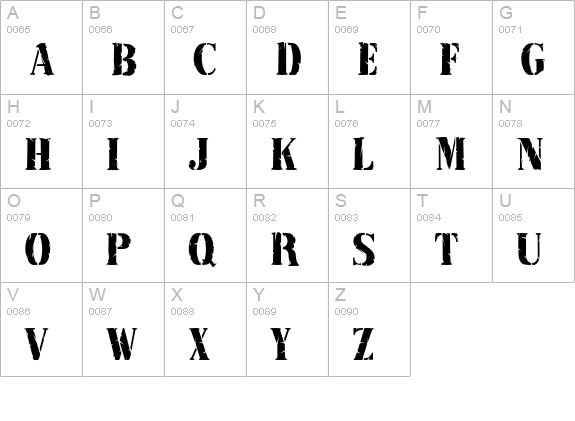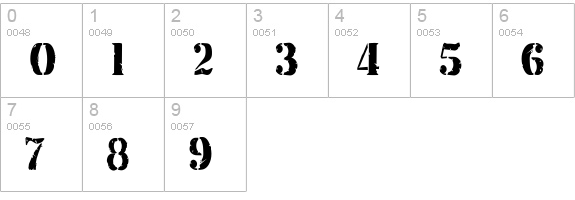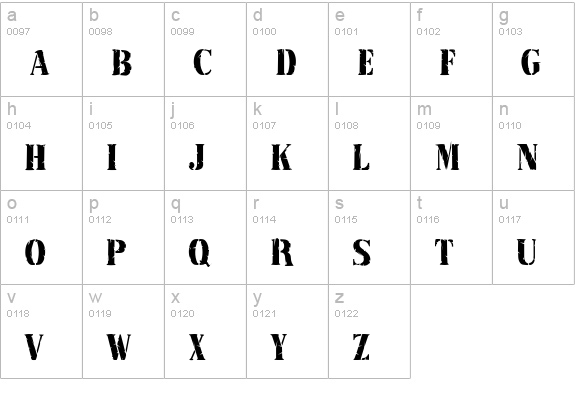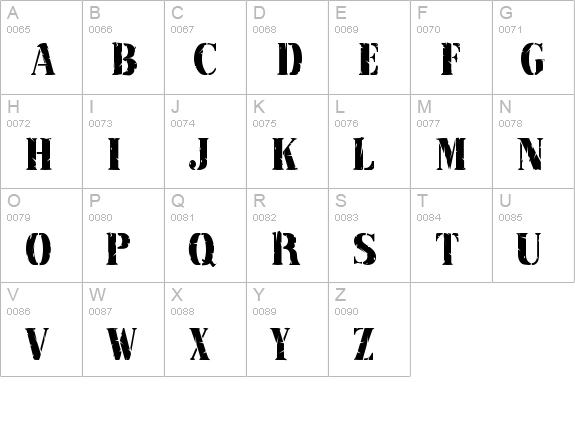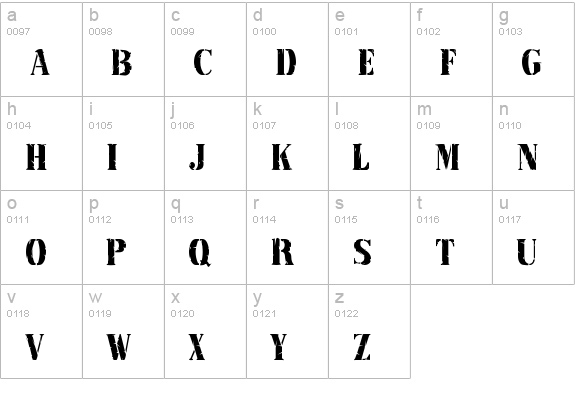
RubberStampCondensed Normal is the standard, neutral variant in the RubberStampCondensed typeface family \xE2\x80\x94 well suited to general body text, paragraphs, and standard typographic work.
RubberStampCondensed Normal font is a unique and versatile typeface that exudes a sense of creativity and authenticity. Its condensed design gives it a modern and sleek appearance, making it perfect for a wide range of design projects. Whether you are looking to add a touch of whimsy to your branding, create eye-catching headlines, or give your artwork a handcrafted feel, RubberStampCondensed Normal font is the perfect choice. Best of all, this font is available for free download at FontsMarket.com. With its easy accessibility, you can start using RubberStampCondensed Normal font in your projects right away. Don't miss out on the opportunity to enhance your designs with this stylish and distinctive typeface that will surely make a lasting impression.